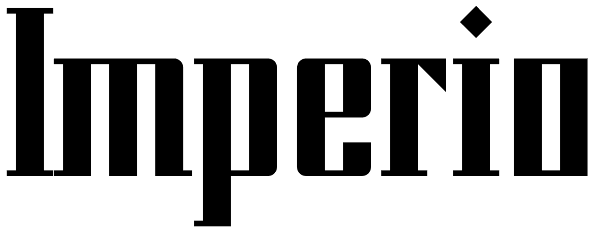
Imperio
Imperio is a font inspired by old posters, especially those related to constructivism and futurism. It reflects both the rationalism of Bauhaus as a propagandist and revolutionary spirit of an era. On the other hand it is not nostalgic, but instead...